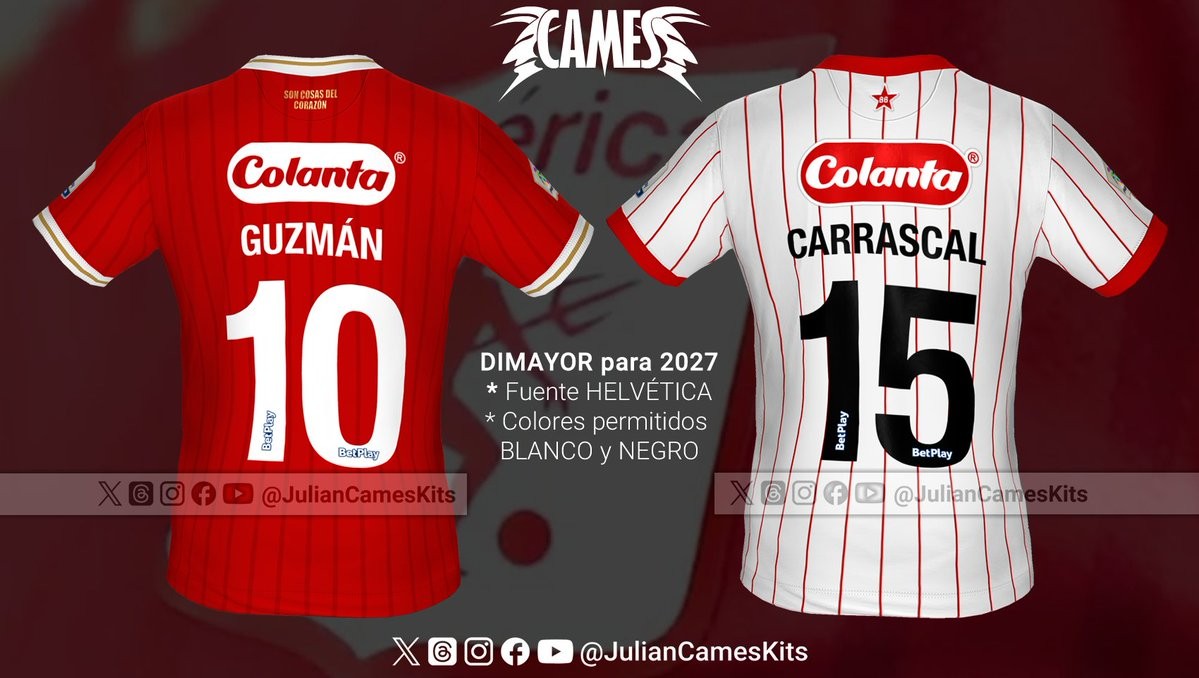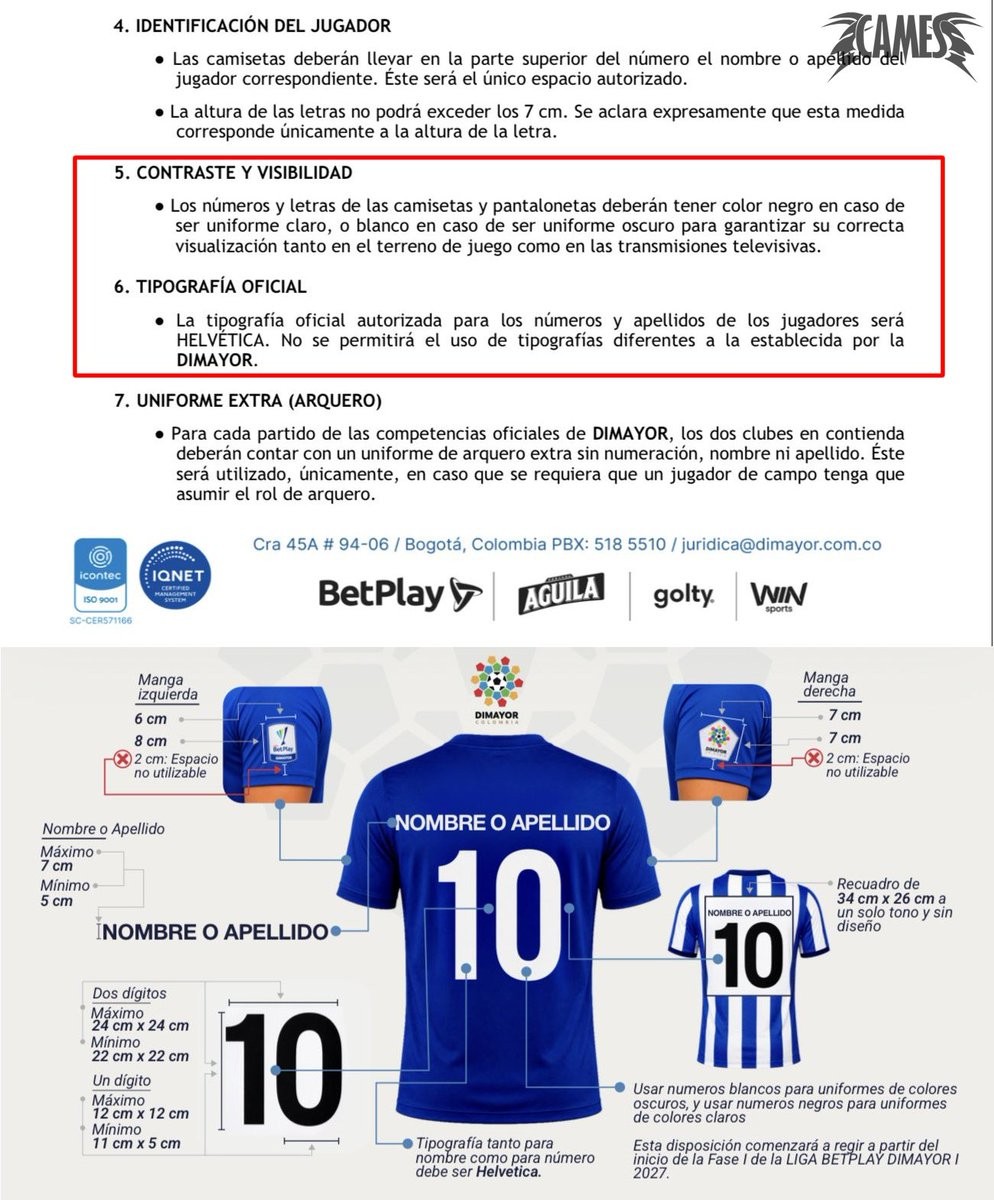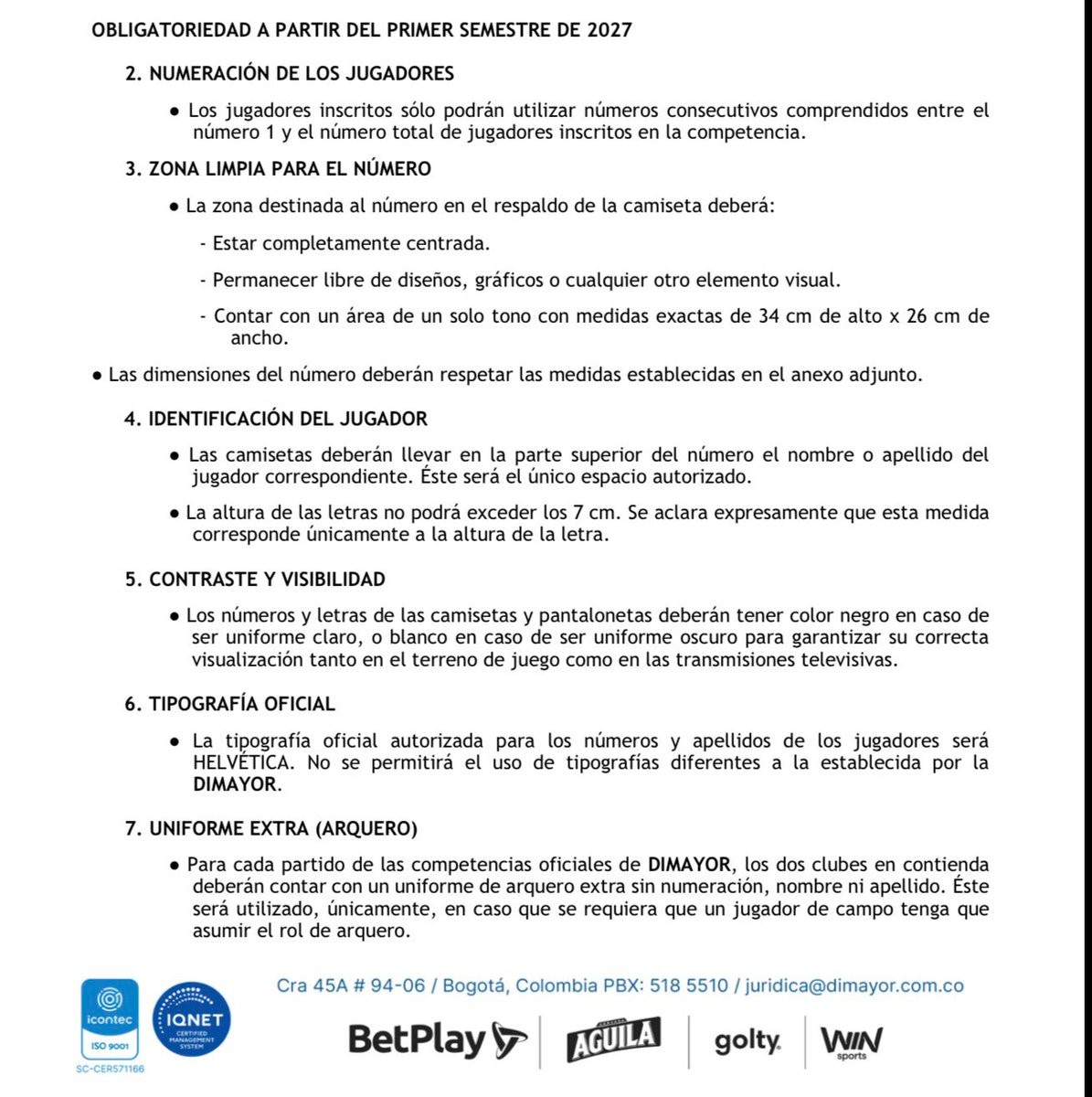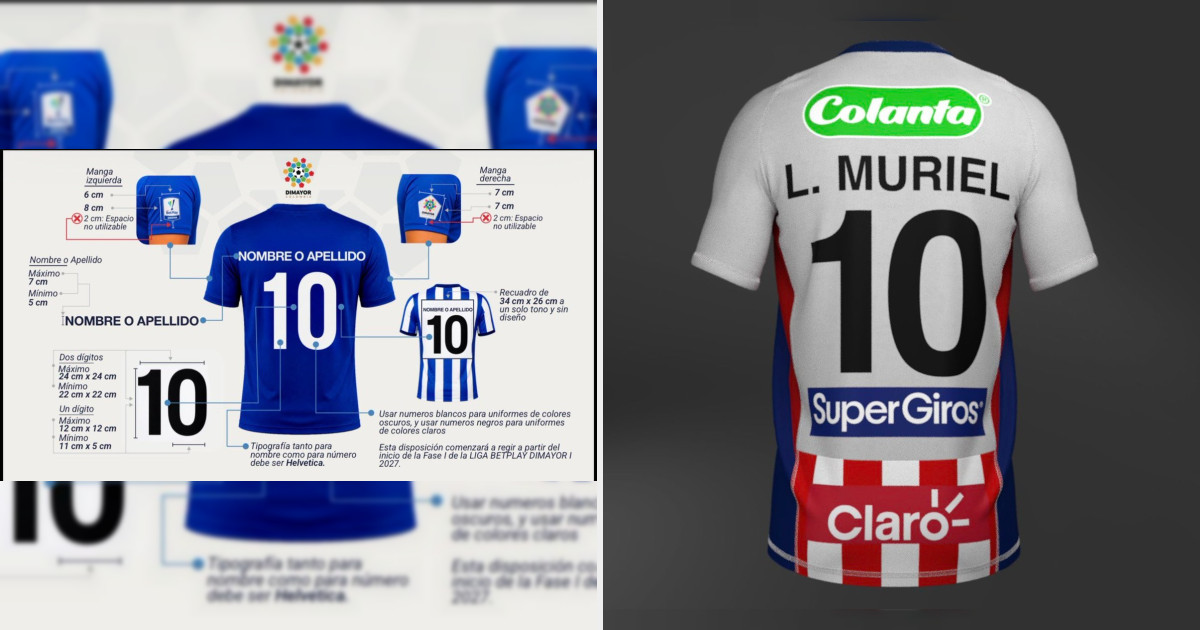
Colombia's DIMAYOR Mandates Standard Helvetica Font for All Teams From 2027
Colombian football governing body DIMAYOR is set to introduce sweeping kit branding regulations starting with the 2027 Liga BetPlay season. An official circular distributed to professional clubs outlines strict new rules for shirt names, numbering, and sleeve badges. Most notably, the league will mandate Helvetica as the sole official typeface for player names and squad numbers across all participating teams, stripping clubs and kit manufacturers of the ability to use custom fonts. Big thanks to @cdfactoryco.
Beyond standardizing the typography, the regulations strictly govern visibility and colors. All names and numbers must appear either in solid black on light-colored kits or solid white on dark-colored kits, with no additional accent colors or outlines permitted. For shirts featuring stripes or graphic patterns, clubs must integrate a blank, single-tone rectangle measuring exactly 34 cm by 26 cm on the back to host the number. Player names must be positioned directly above the number with a font height between 5 cm and 7 cm, while DIMAYOR and competition sleeve badges will have designated dimensions and mandatory placement below club sponsor patches.
DIMAYOR is also putting an end to unconventional squad numbers. Players will only be allowed to wear consecutive integers from 1 up to the total number of registered squad members, outlawing high numbers such as 77, 88, or 99. The drastic move has sparked backlash among Colombian football fans and kit designers, who have criticized the choice of a standard office typeface and the loss of distinctive club identity on the pitch.